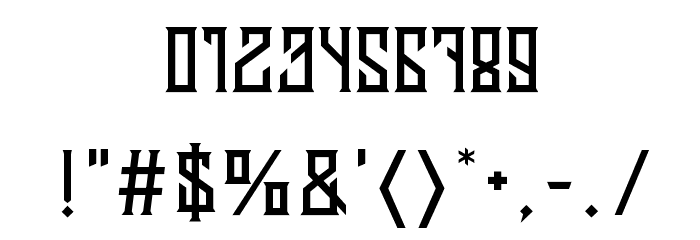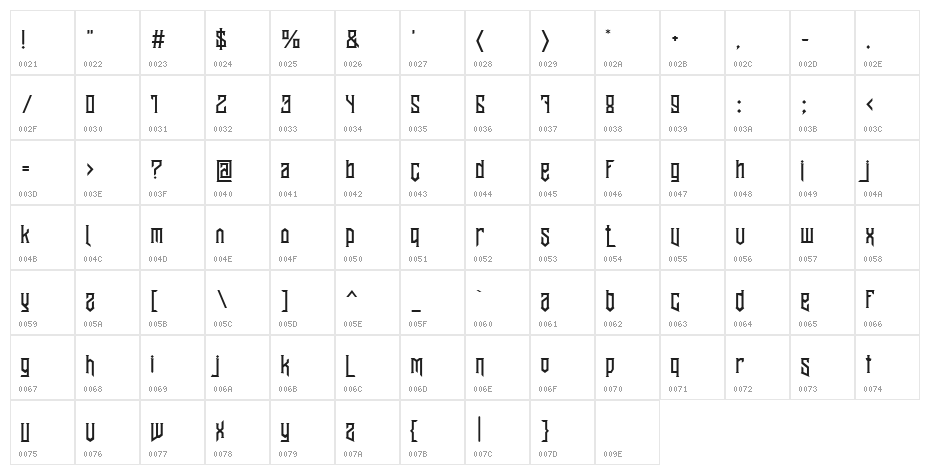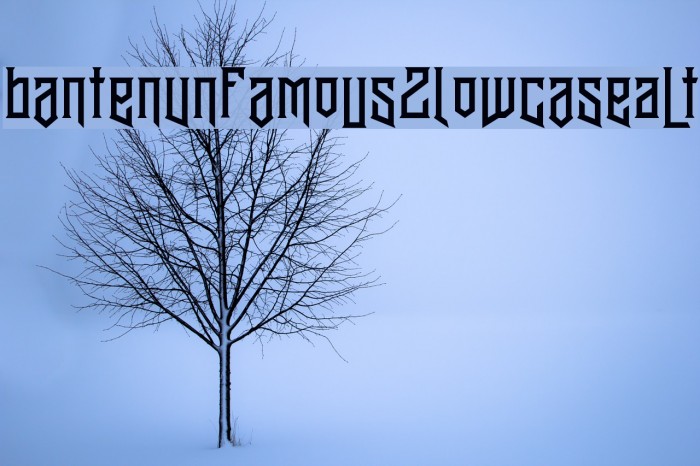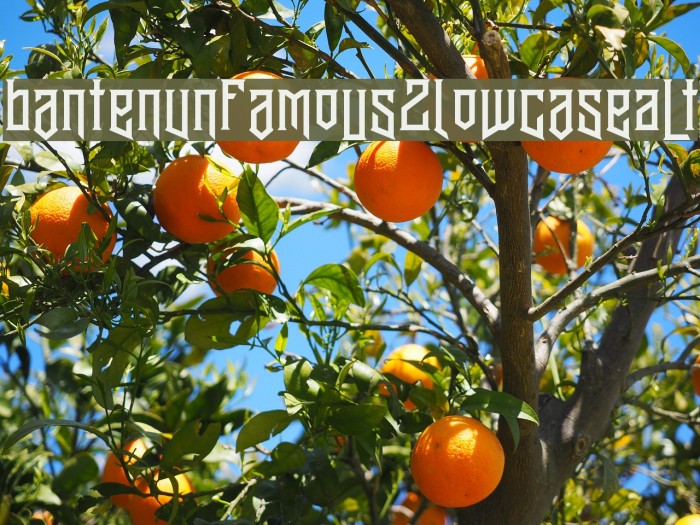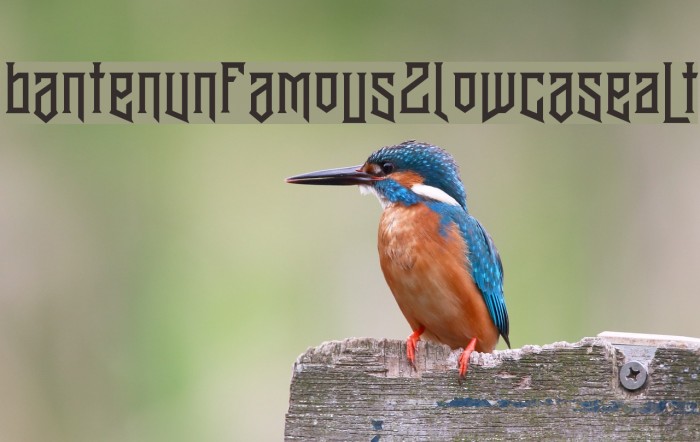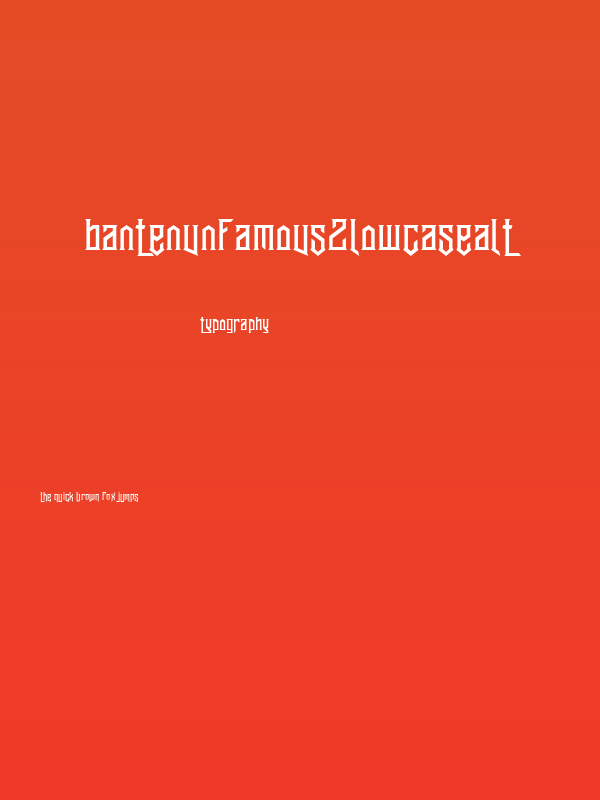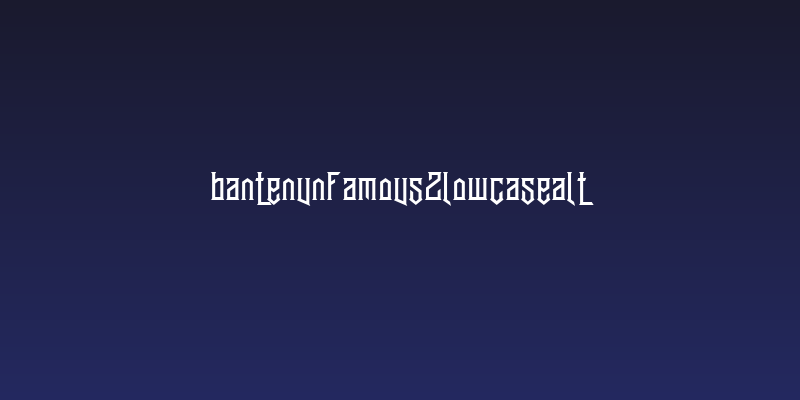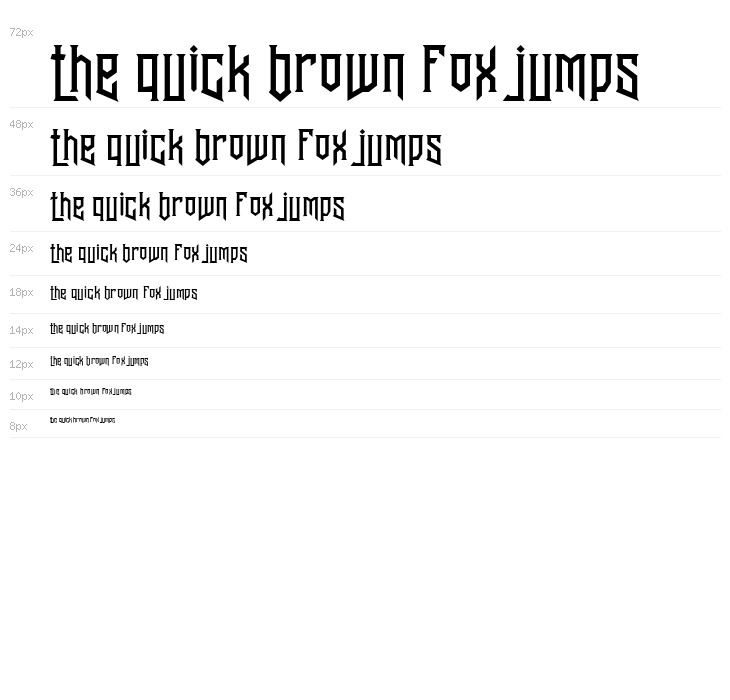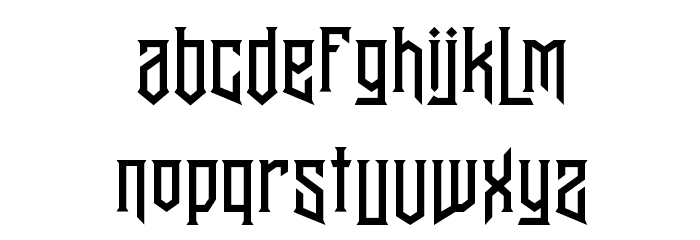
BantenUnfamous2LowcaseAlt Font
BantenUnfamous2LowcaseAlt Description
This font features a bold and striking design with sharp, angular edges and a distinct geometric style. The characters are crafted with high contrast, showcasing thick vertical strokes and thinner horizontal lines, creating a dynamic and eye-catching appearance. The uppercase and lowercase letters maintain a consistent style, with unique, pointed serifs that add to the font's dramatic flair. The numbers and special characters are designed to match the overall aesthetic, ensuring a cohesive look across all text elements. This font is ideal for projects that require a strong visual impact and a modern, edgy feel.
| Overall Style | Modern, Edgy |
| Proposed Projects | Perfect for branding, posters, album covers, and any project needing a bold, modern look. |